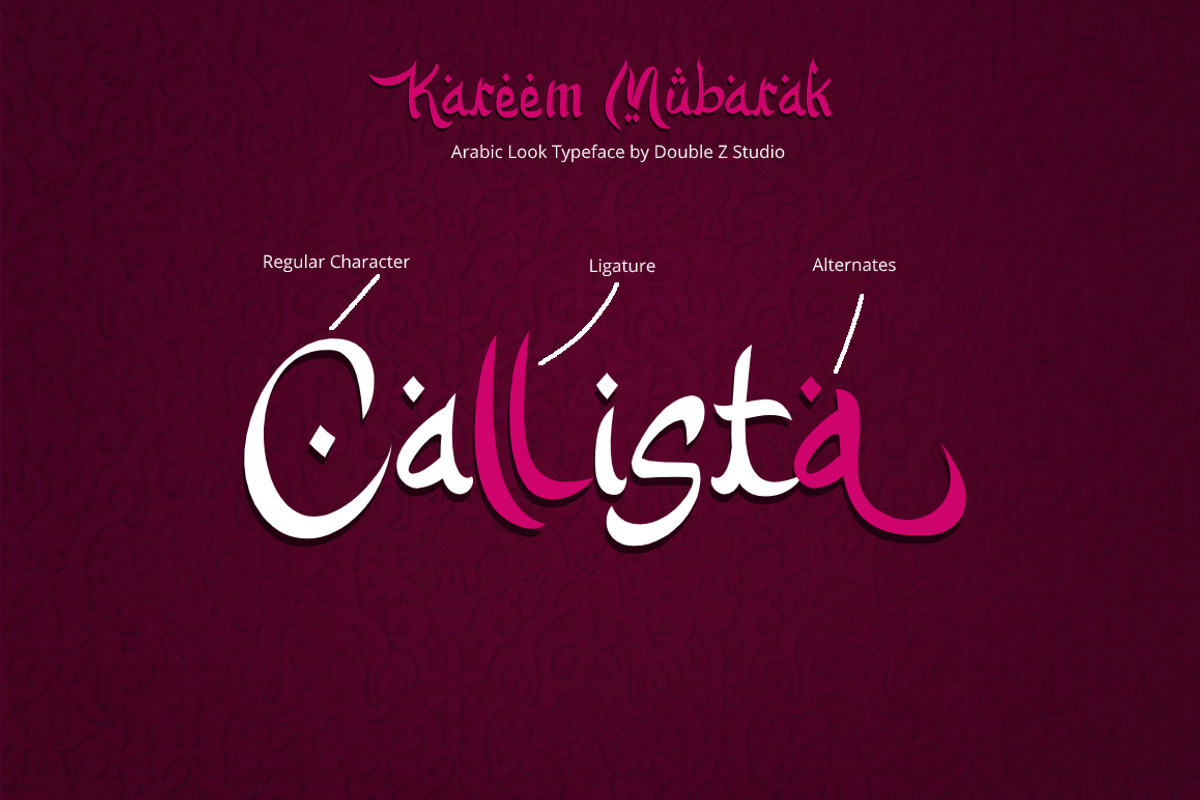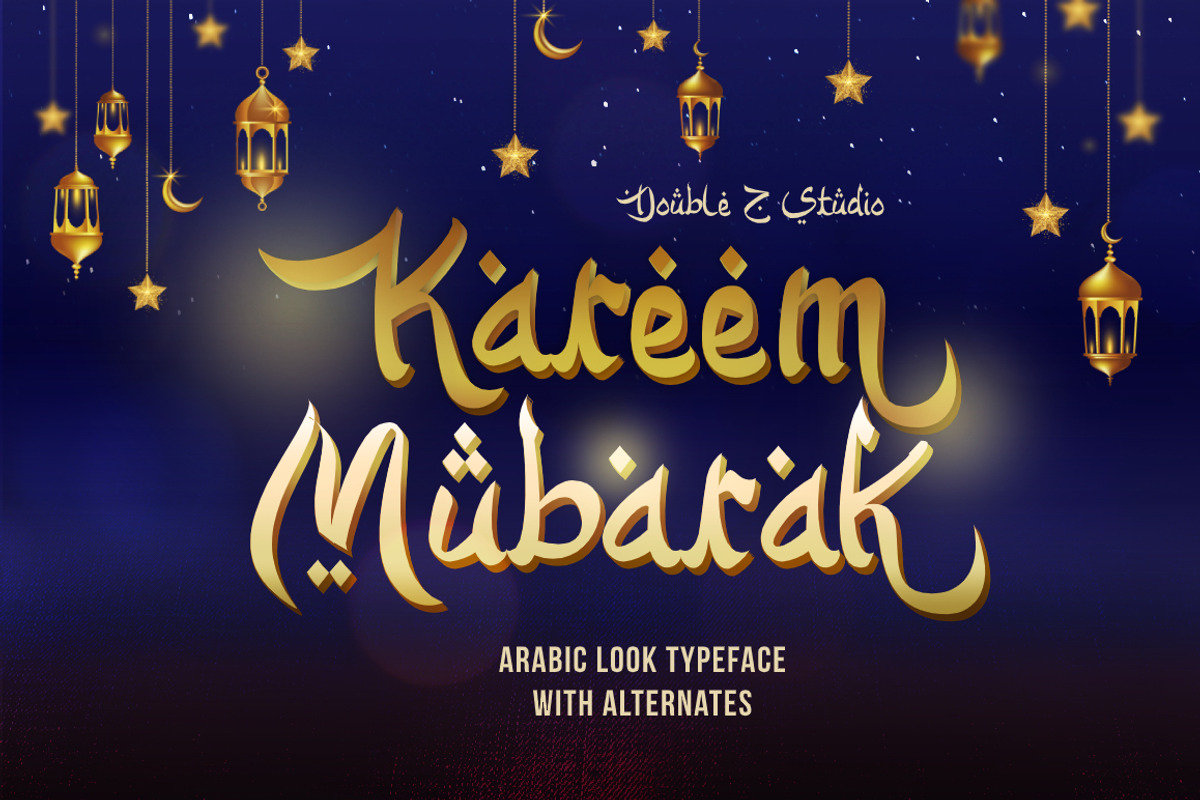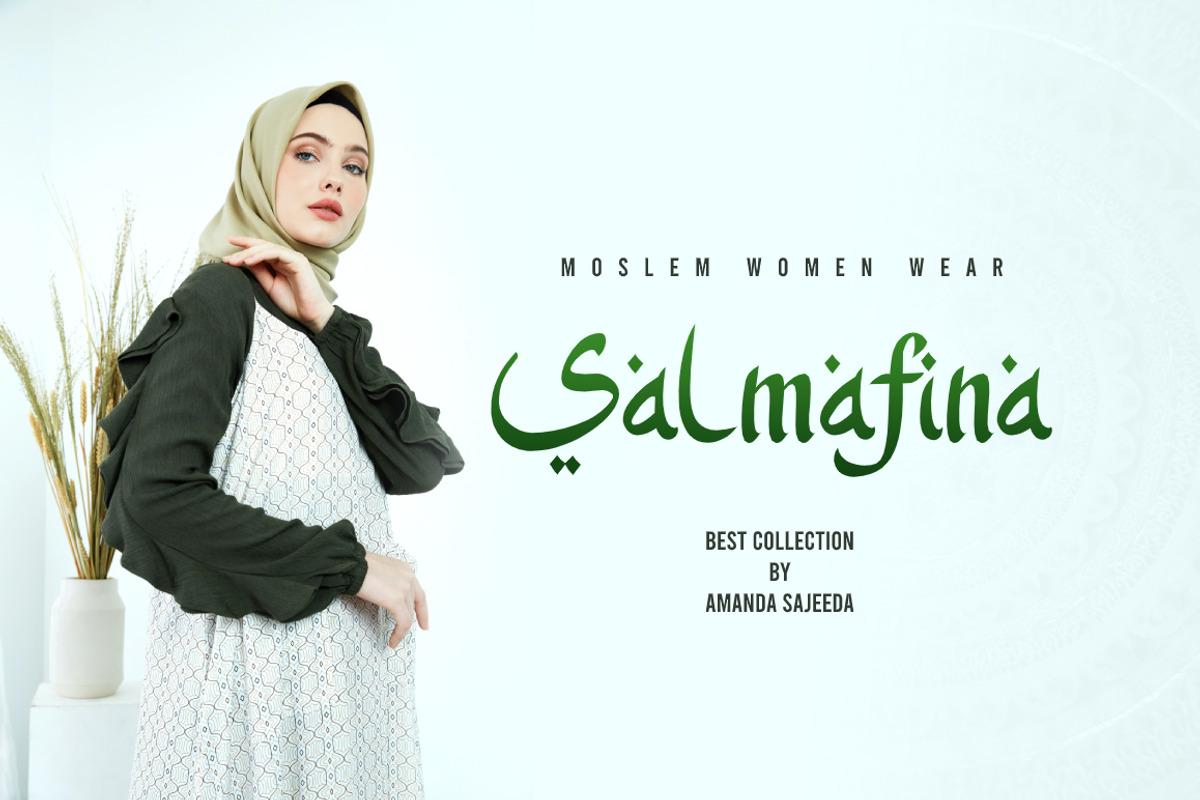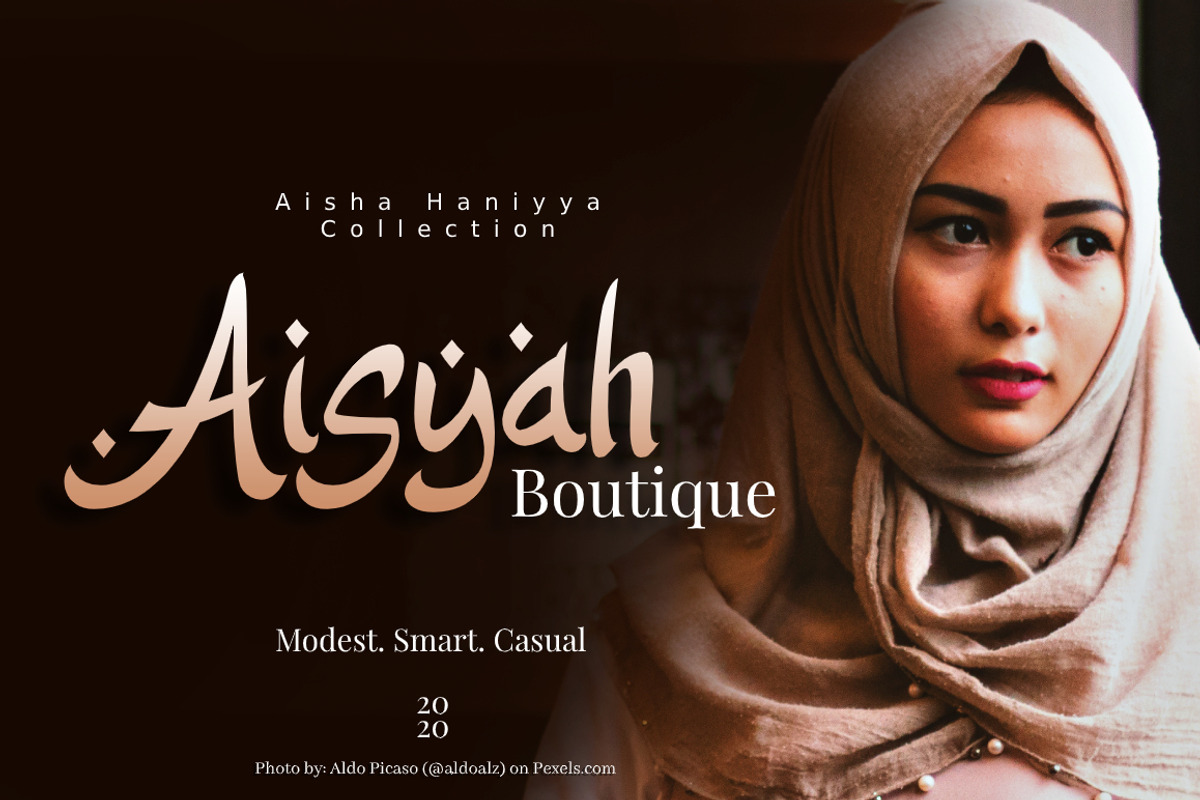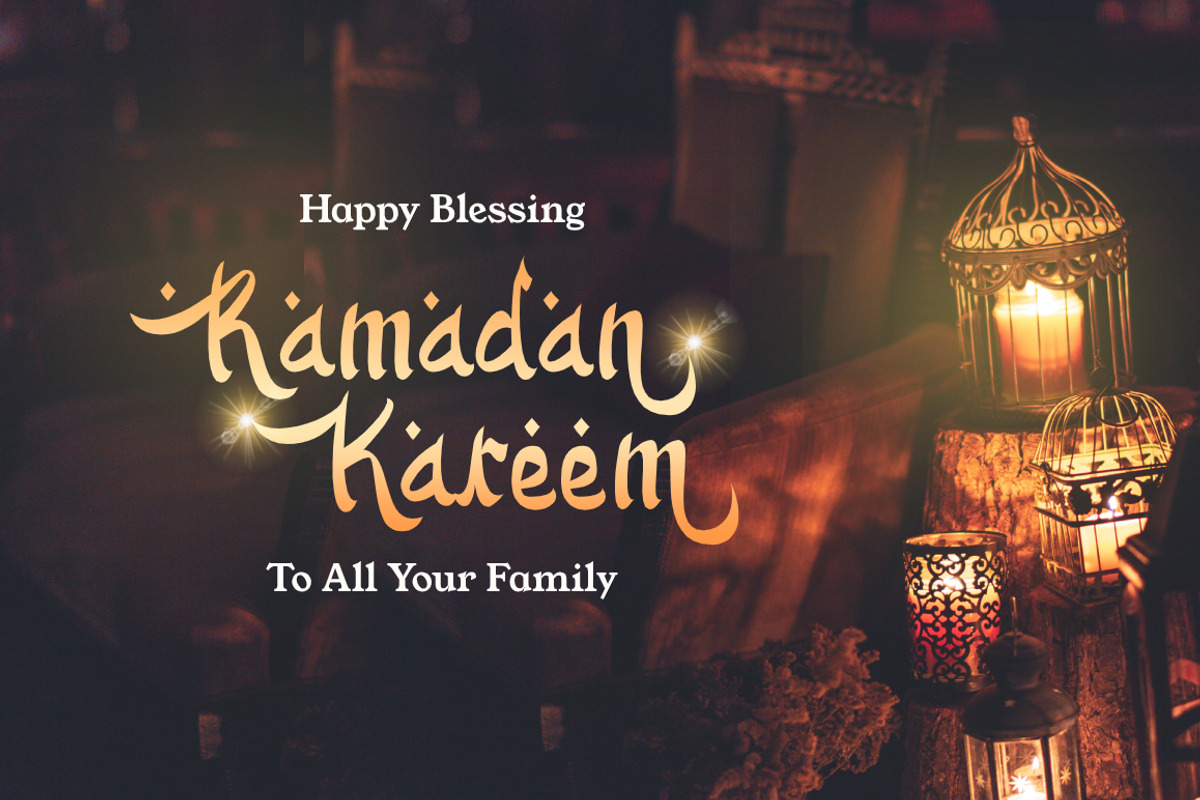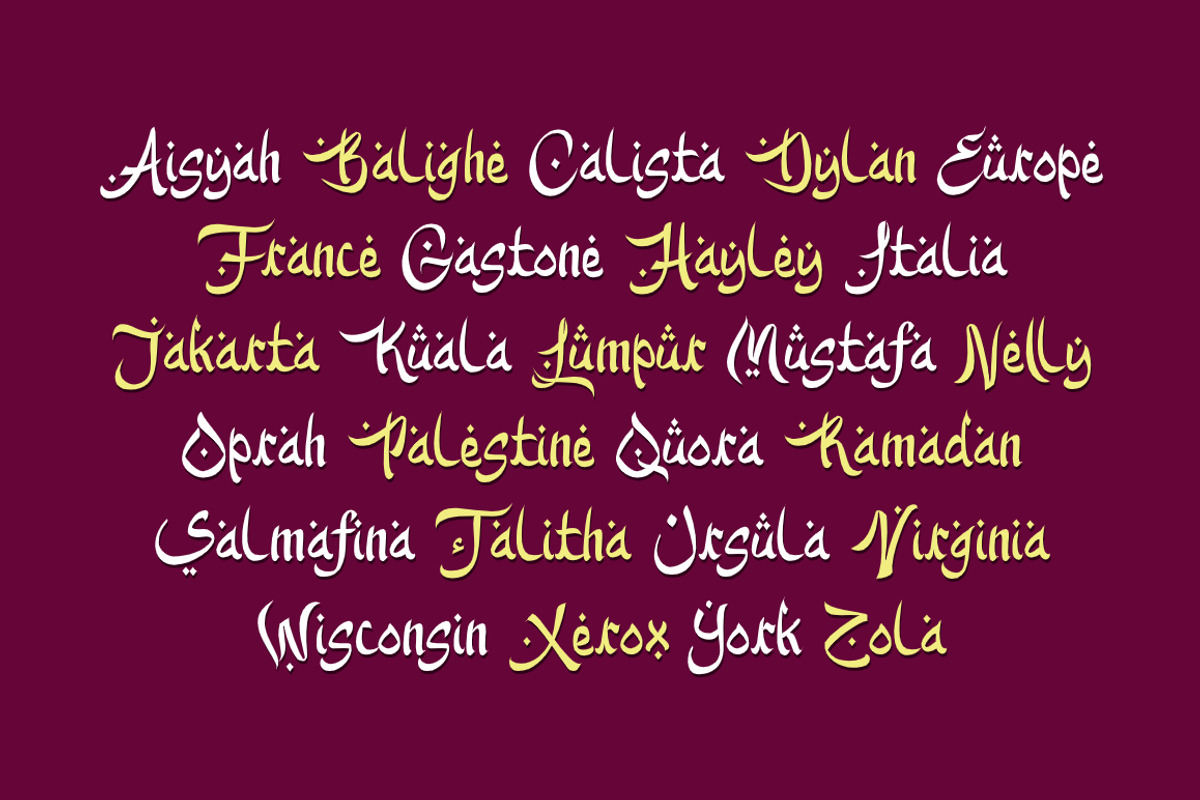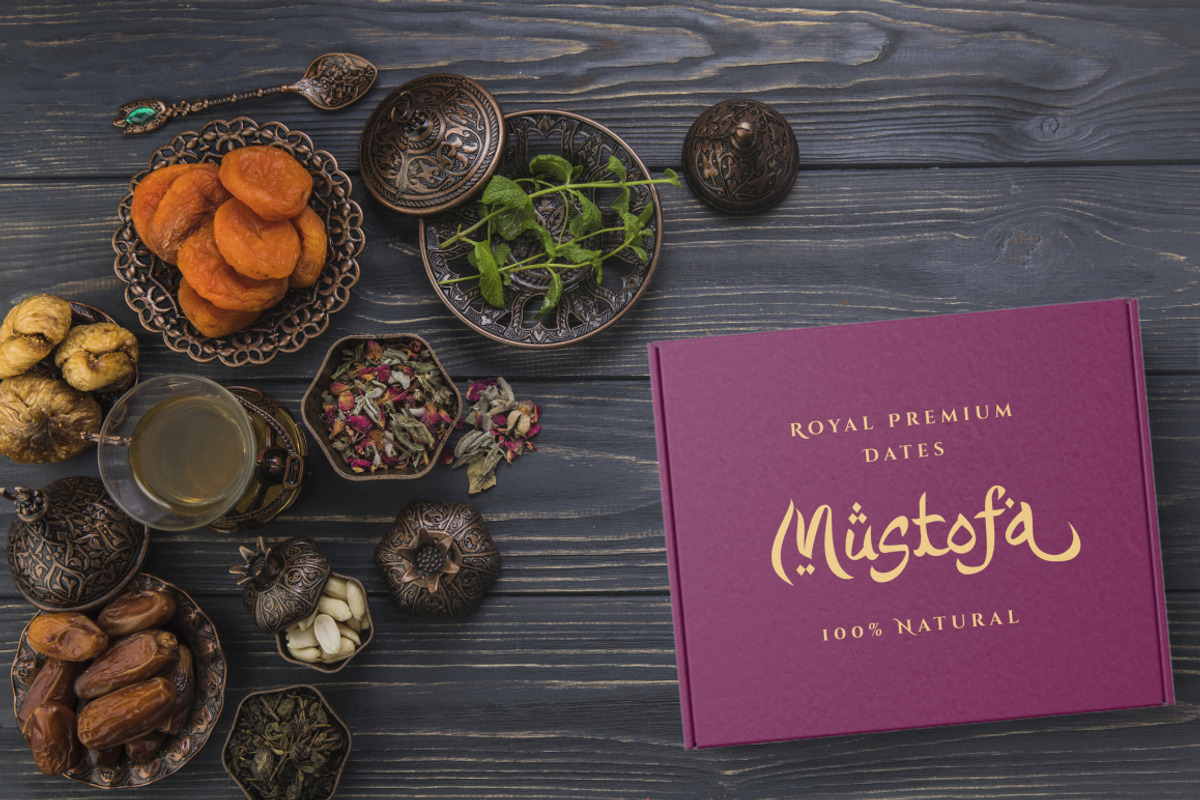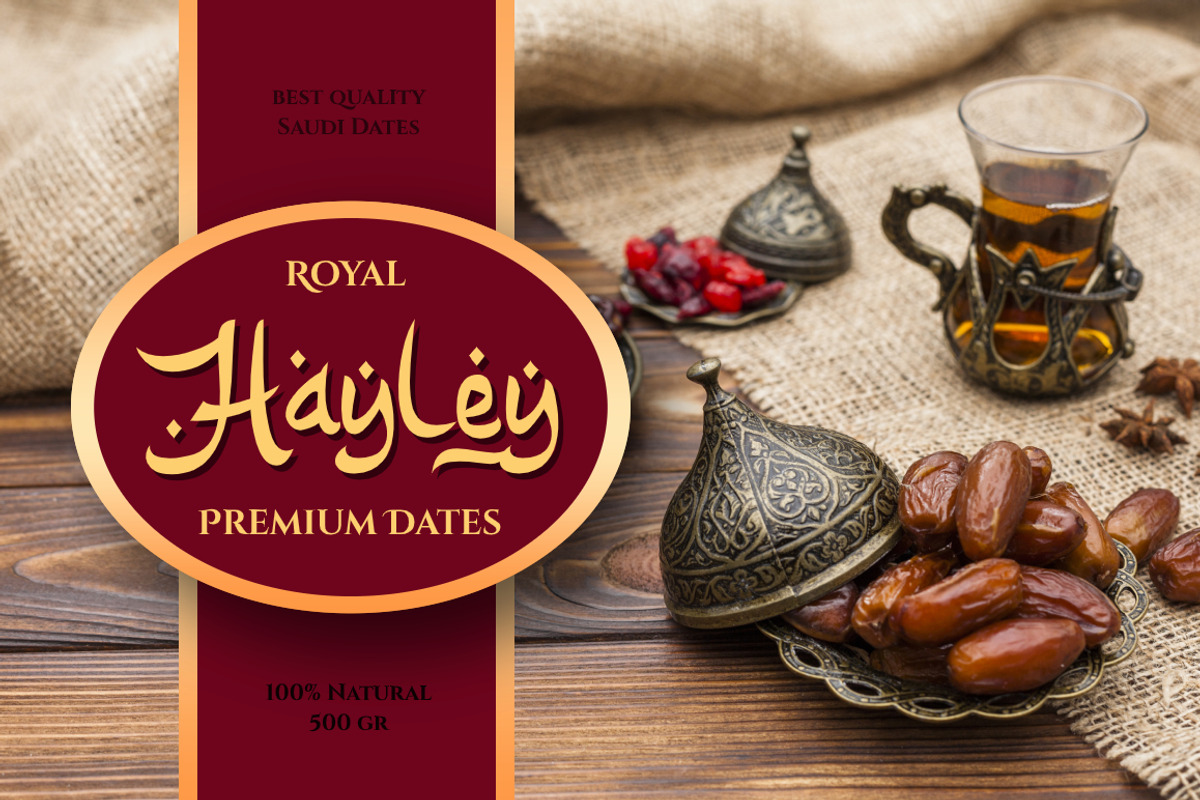
Kareem Mubarak Arabic Look Font
Kareem Mubarak is an arabic fauxlang or arabic look typeface. Carefully crafted. Smoothly flowing, perfect for logotype on Islamic or arabic event or brand.
Opentype features gives you more alternatives in designing.
Kareem Mubarak Arabic Look Font by DoubleZ Studio fits naturally into Branding, posters, packaging, typography.